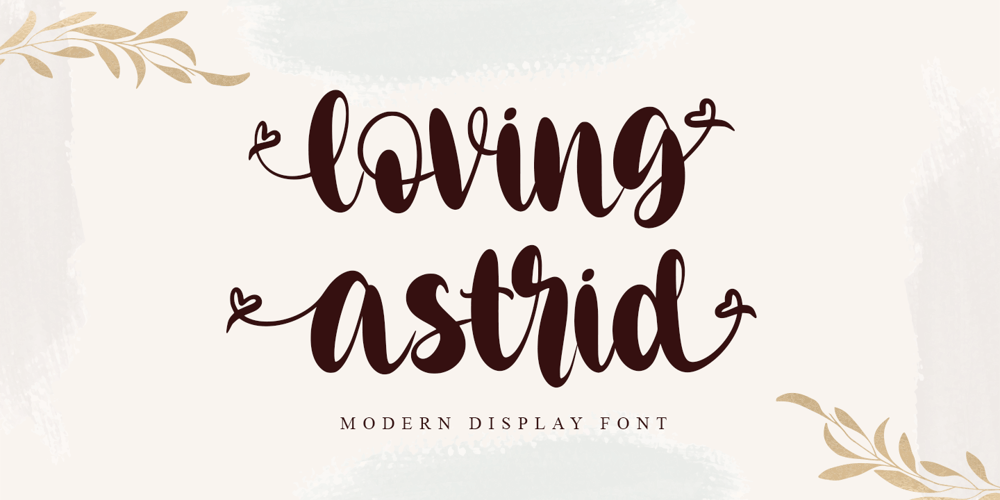
Loving Astrid Font Family was designed by Thomas Aradea and published by Letterara. Loving Astrid contains 2 styles and family package options. Loving Astrid is a new, fresh, sweet, and unique handcrafted font. It’s ideal for branding and decorating your projects. Loving Astrid font has a classy and modern look that can be used for logos, branding, invitations, posters, advertisements, stationery, animated films, social media posts, youtube channel, and much more! It is PUA coded, which means you can easily access all the glyphs and sweeps!